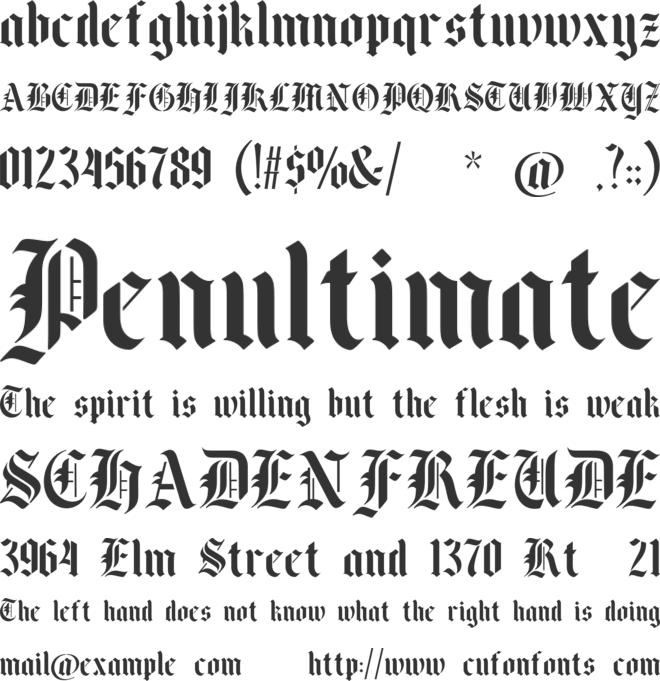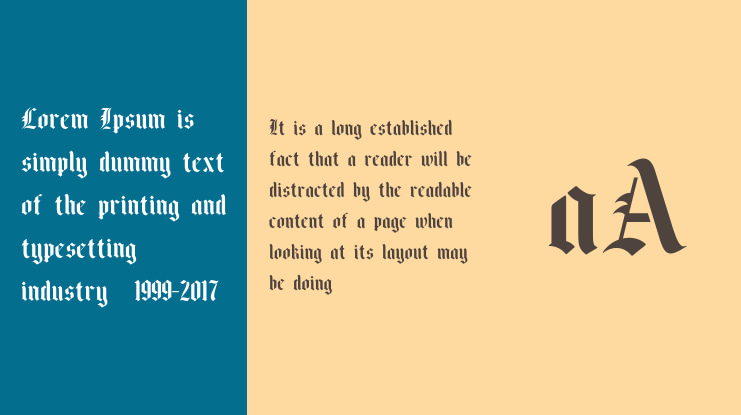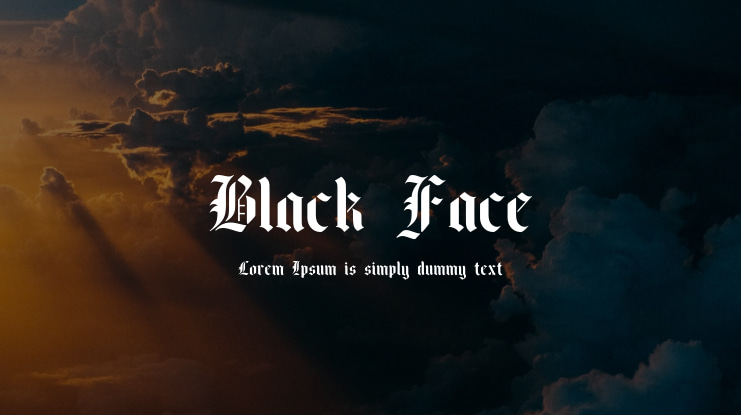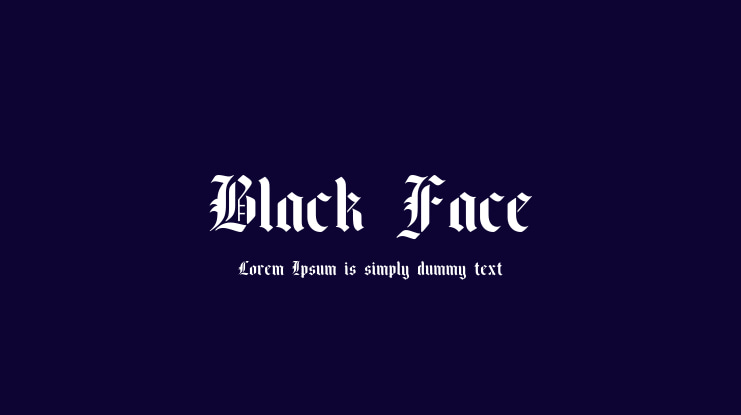
Black Face Font
Black Face – A Gothic Stencil Blackletter Typeface
Unleash the power of Black Face, a meticulously crafted blackletter stencil typeface that blends historical elegance with modern boldness. This font is designed for creators who dare to stand out—whether you’re designing tattoos, branding, posters, album covers, or apparel.
With its sharp, angular strokes and rugged stencil cuts, Black Face exudes strength, rebellion, and timeless gothic charm. Each letter is expertly detailed, balancing the intricacy of medieval calligraphy with the industrial aesthetics of stencil typography.